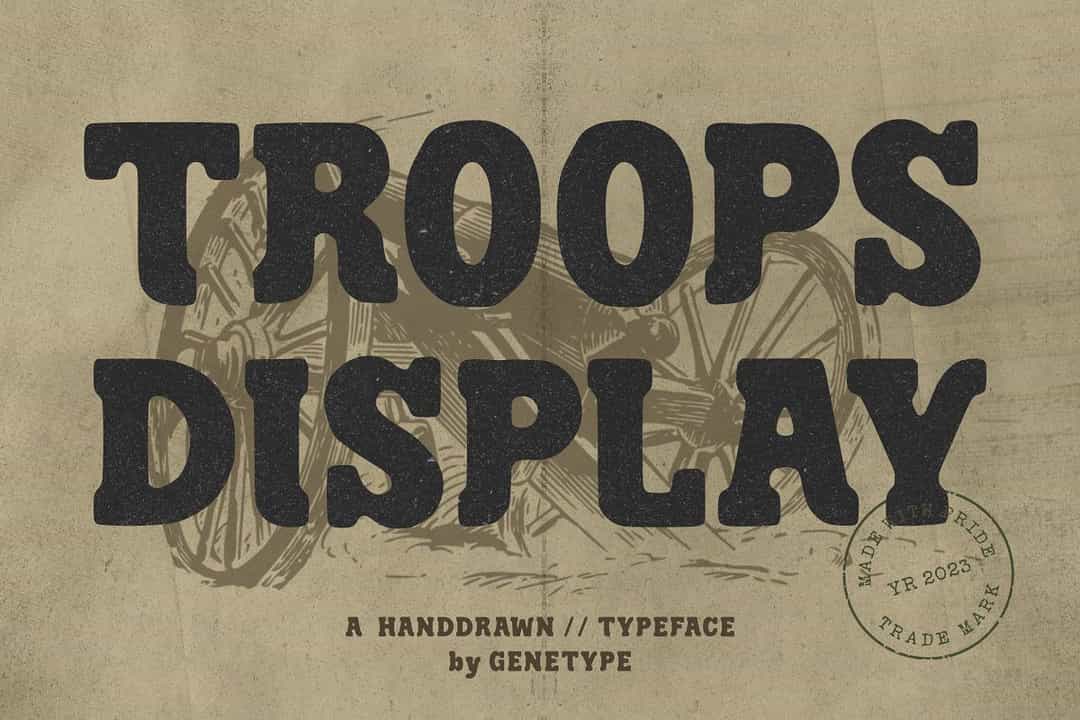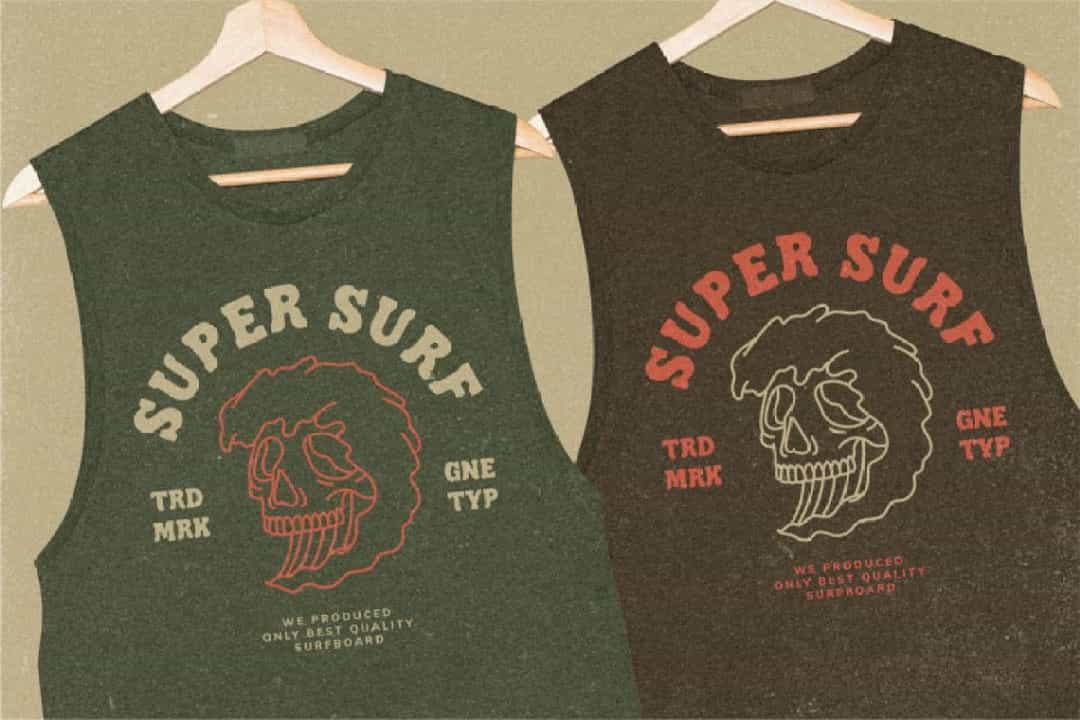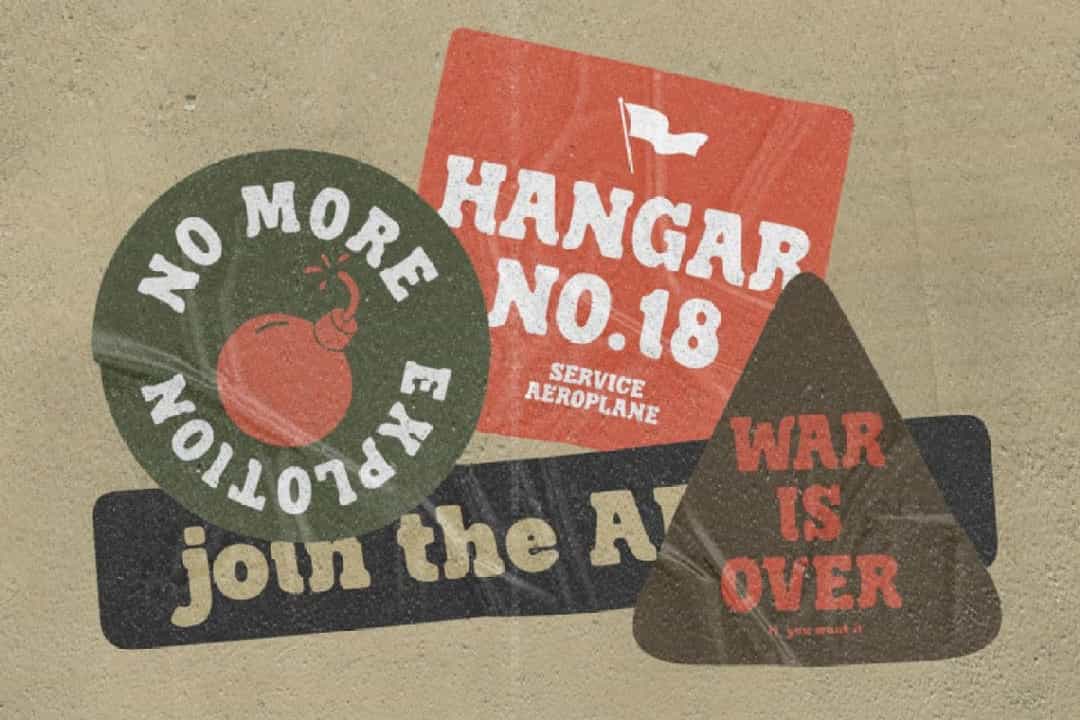
Troops Display font combines classic aesthetics with modern flair effortlessly, boasting rugged style reminiscent of its former life while its slab serif typeface has its own distinct character and strength. “Troops Display” can add striking headlines or attract attention for marketing with its ragged lines and distinct serifs that instantly grab anyone’s attention.